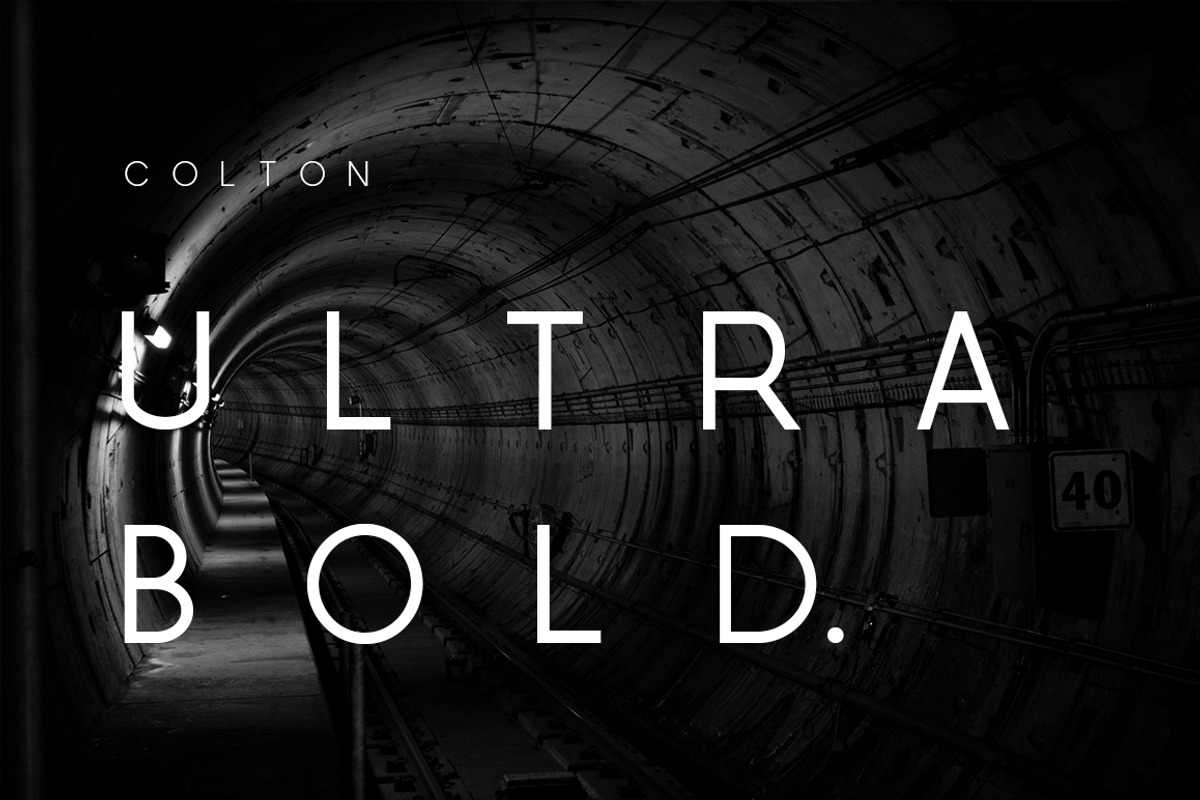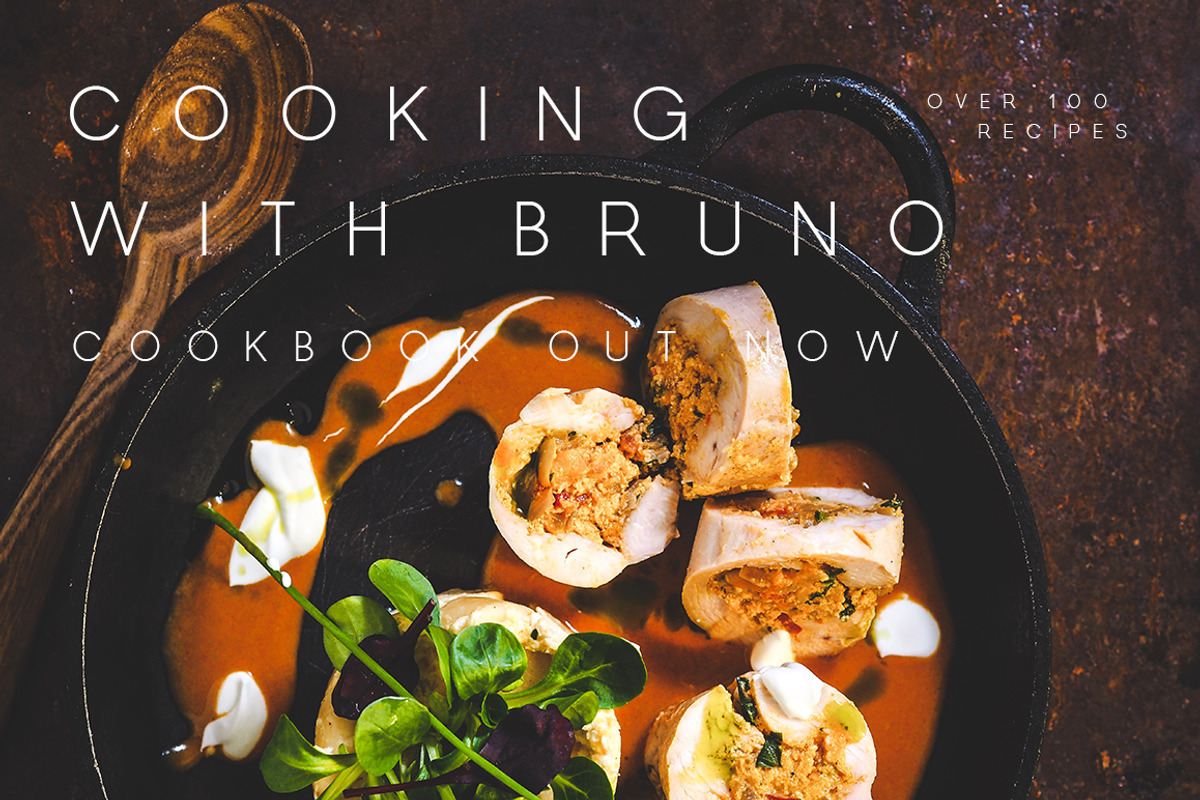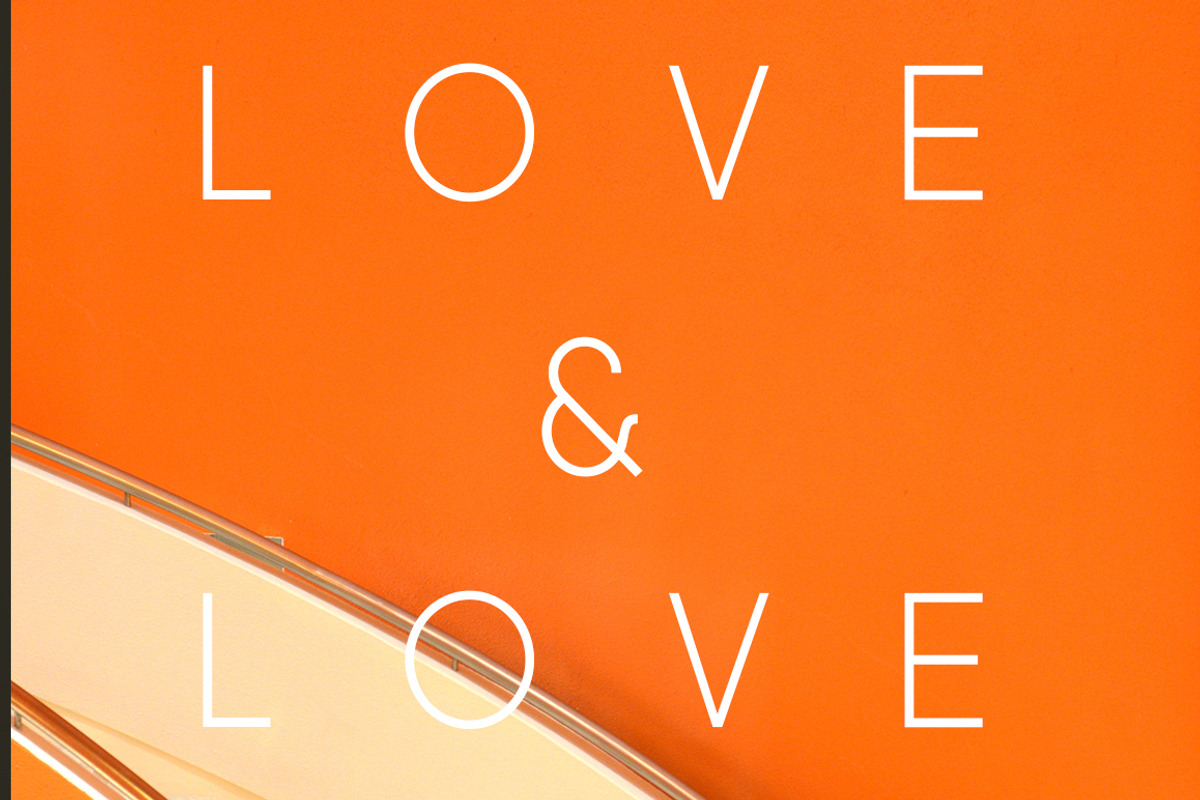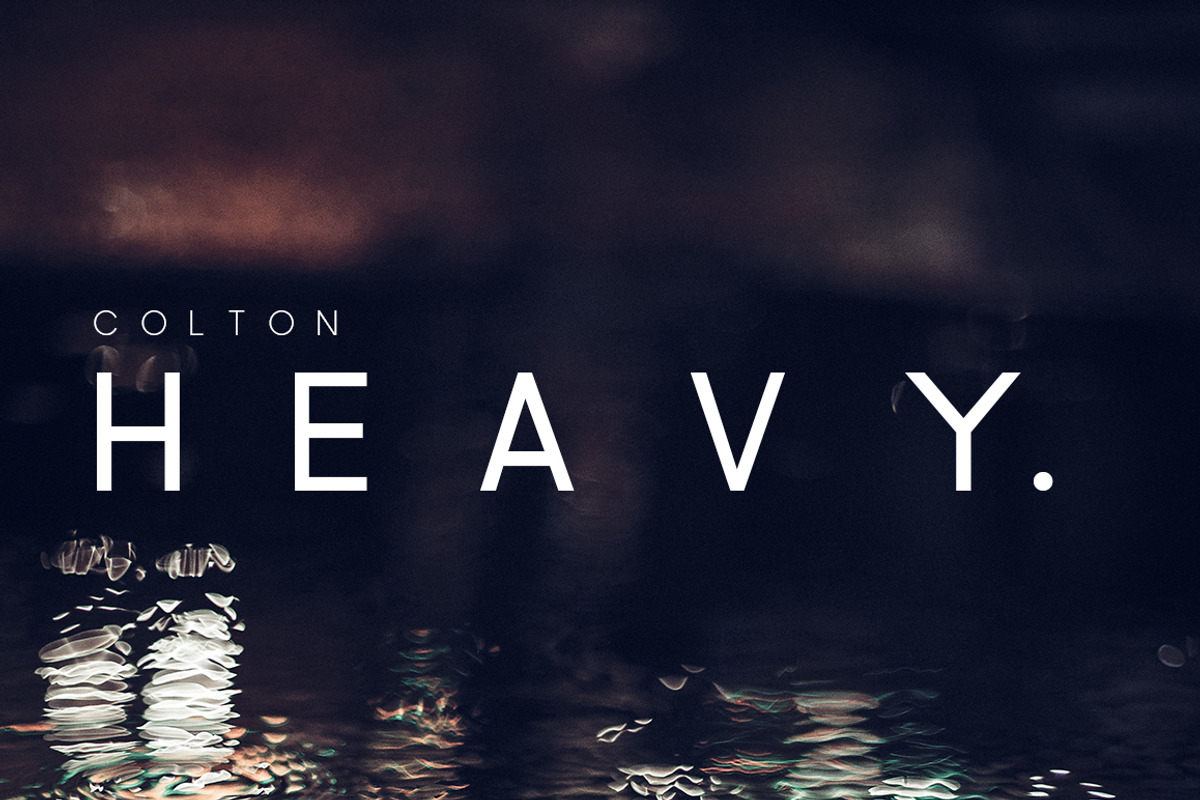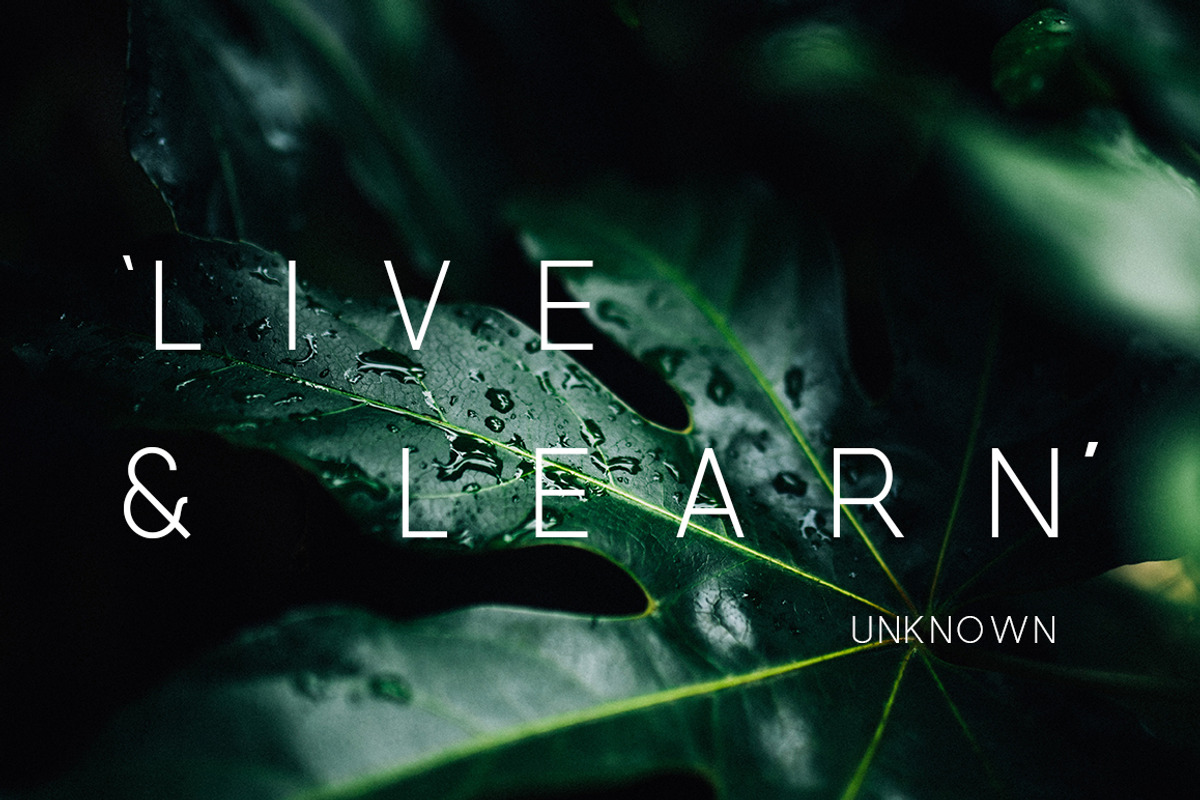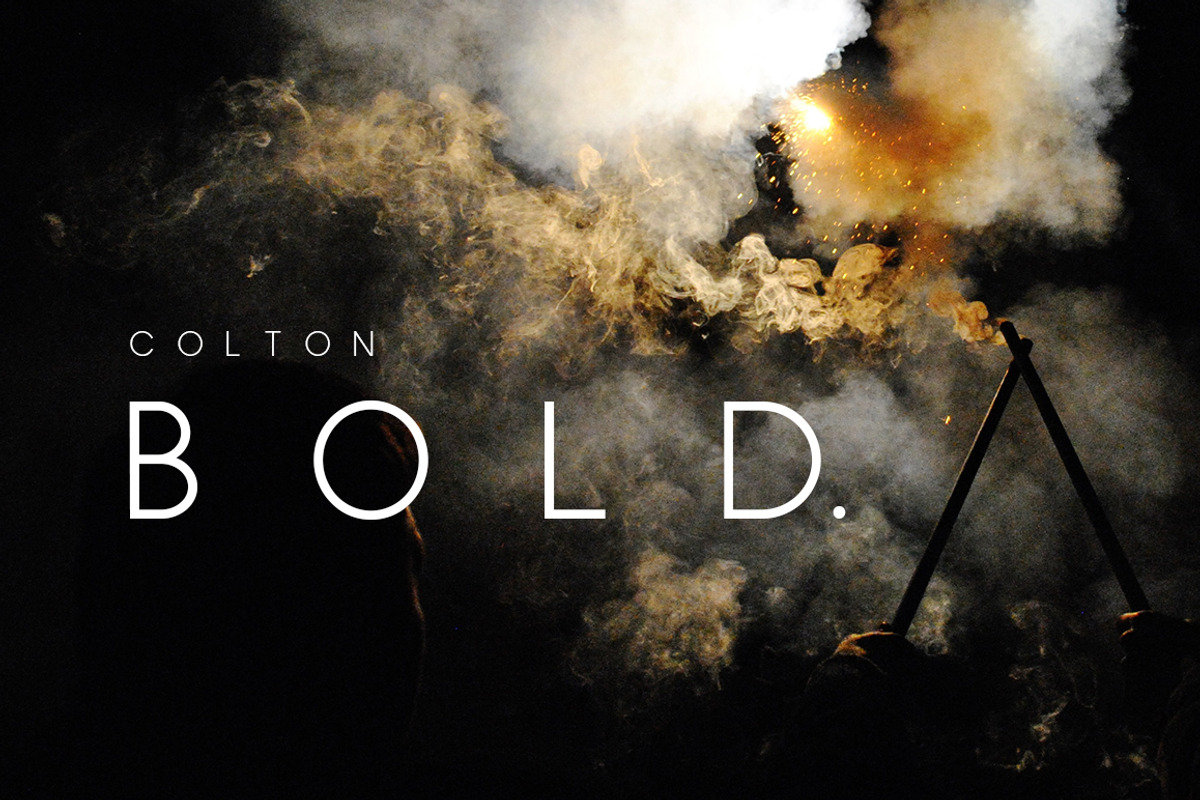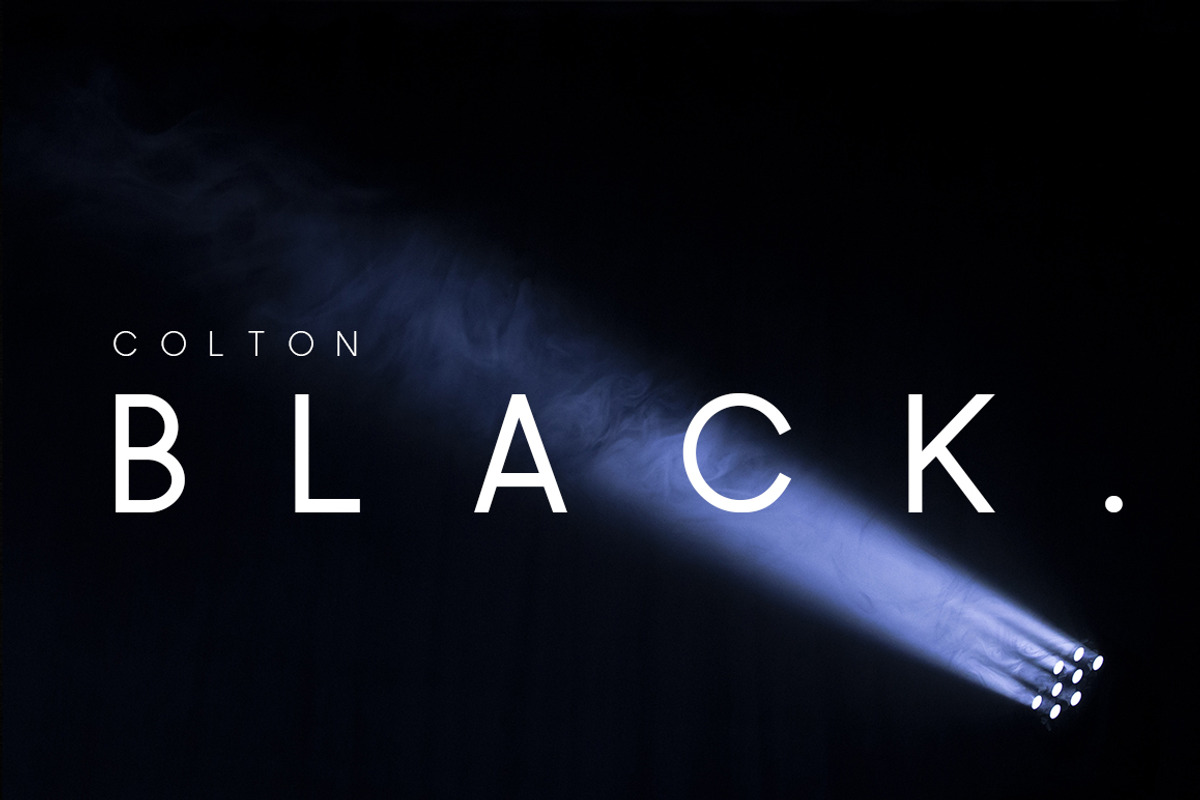
Colton | A Distinguished Family
Streamlined. Sleek. Distinguished.
If you’re looking for an ultra-sleek sans serif to create recognisable, modern & stylish branding, then Colton is the font for you.
A distinguished sans serif, with refined lines, juxtaposed with graceful rounding. Colton is the perfect font for logotypes, signage & branding for hospitality, food & drink, apparel, and so much more. Its timeless and clean style makes it perfect for an array of projects.
Colton is a huge font family including a grand total of 18 fonts (over 3000 individual glyphs). This includes Colton Regular, Light, Extra Light, Thin, Semi Bold, Bold, Ultra Bold, Black & Heavy & Italic.
- Colton comes in 18 striking fonts, adding all the versatility and style you need
- Optimized kerning for aesthetic and highly readable texts
Colton is the perfect font family to create discerning designs, making it a must have for any designer's font collection!